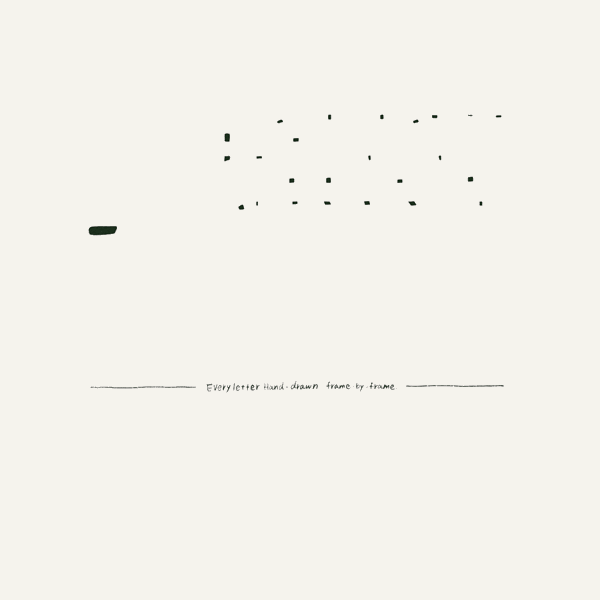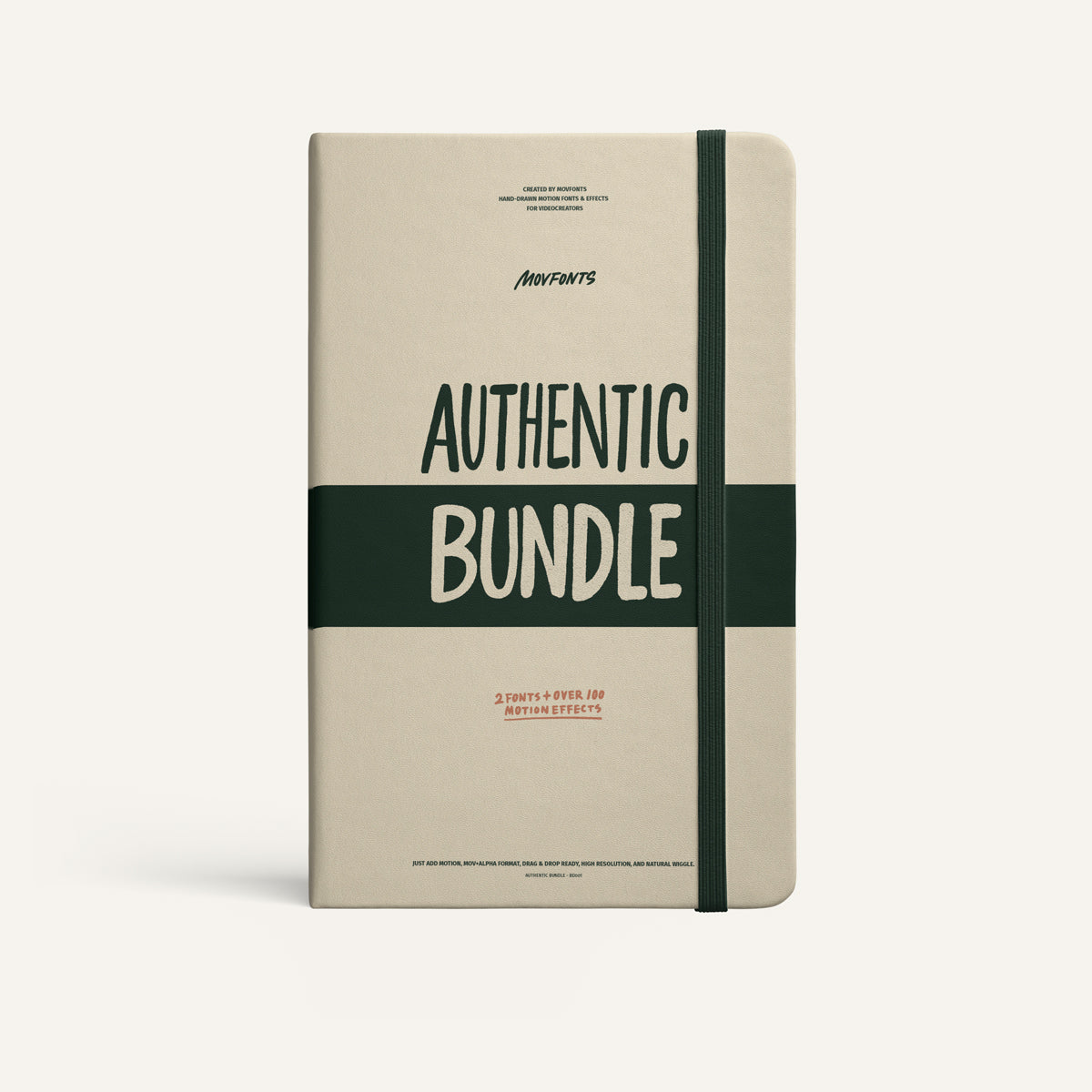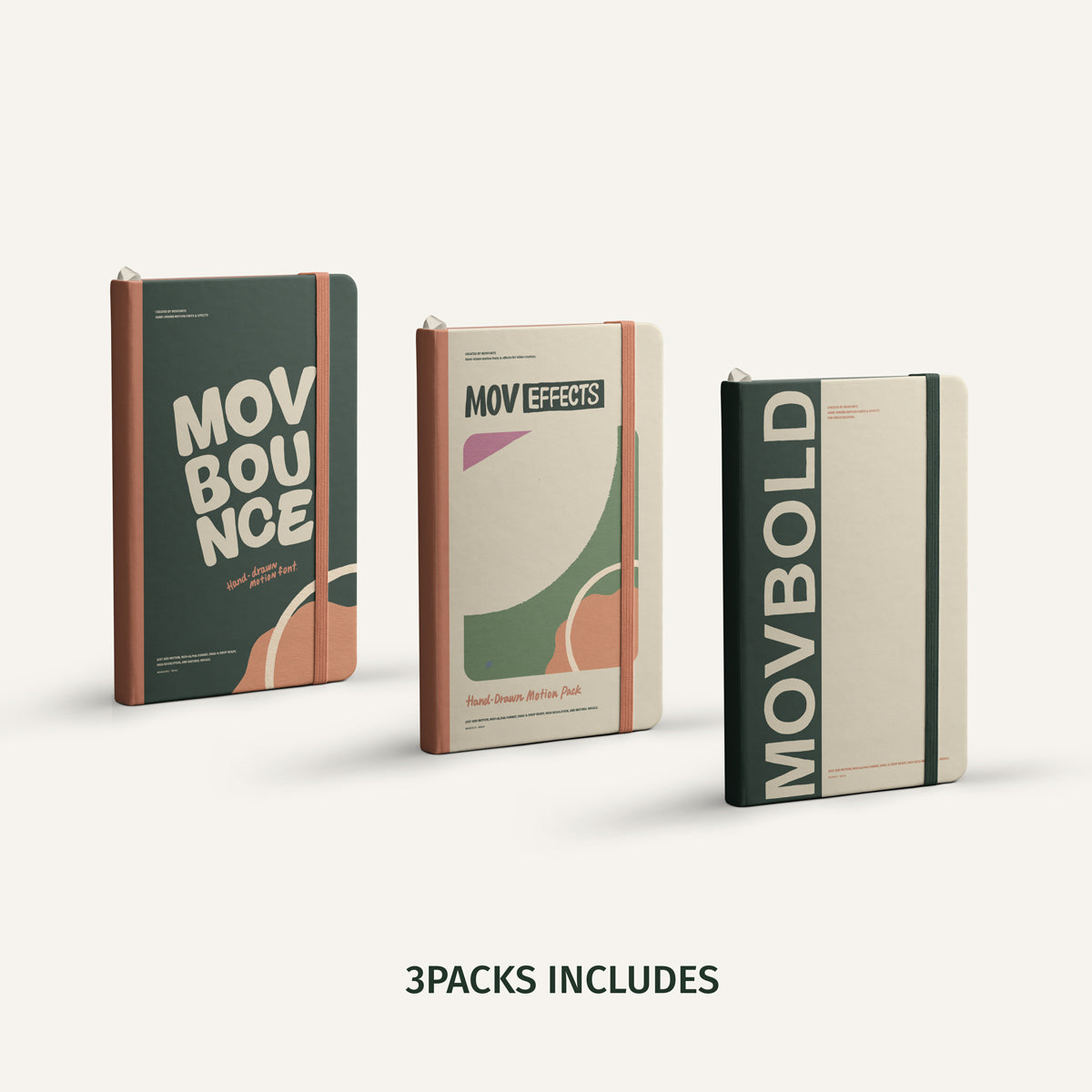
MOVFONTS[AUTHENTIC BUNDLE]
AUTHENTIC BUNDLE
Hand-drawn animation packs for editors who care about real motion.
・100% Hand-Drawn
・Natural Wiggle in Every Lines
・Animated and Loop Ready
Three of our most popular packs
• MOVBOLD – Strong, animated letters full of character
• MOVBOUNCE – Bouncy type and playful motion icons
• MOVEFFECTS – Hand-drawn lines, shapes, highlights and more
Each asset was drawn by hand, then animated for seamless use in video editing.
MOVBOLD
MOVBOUNCE
MOVEFFECTS
Circle Whispers
Loops, rings, and ripples.
Little Bursts
Sparks, drops, and tiny emotions.
Echo Marks
For thoughts, whispers, and shouts.
Drawn Directions
Arrows to guide and point.
Motion Threads
Lines that underline and divide.
Quiet Geometry
Shapes that frame and build.